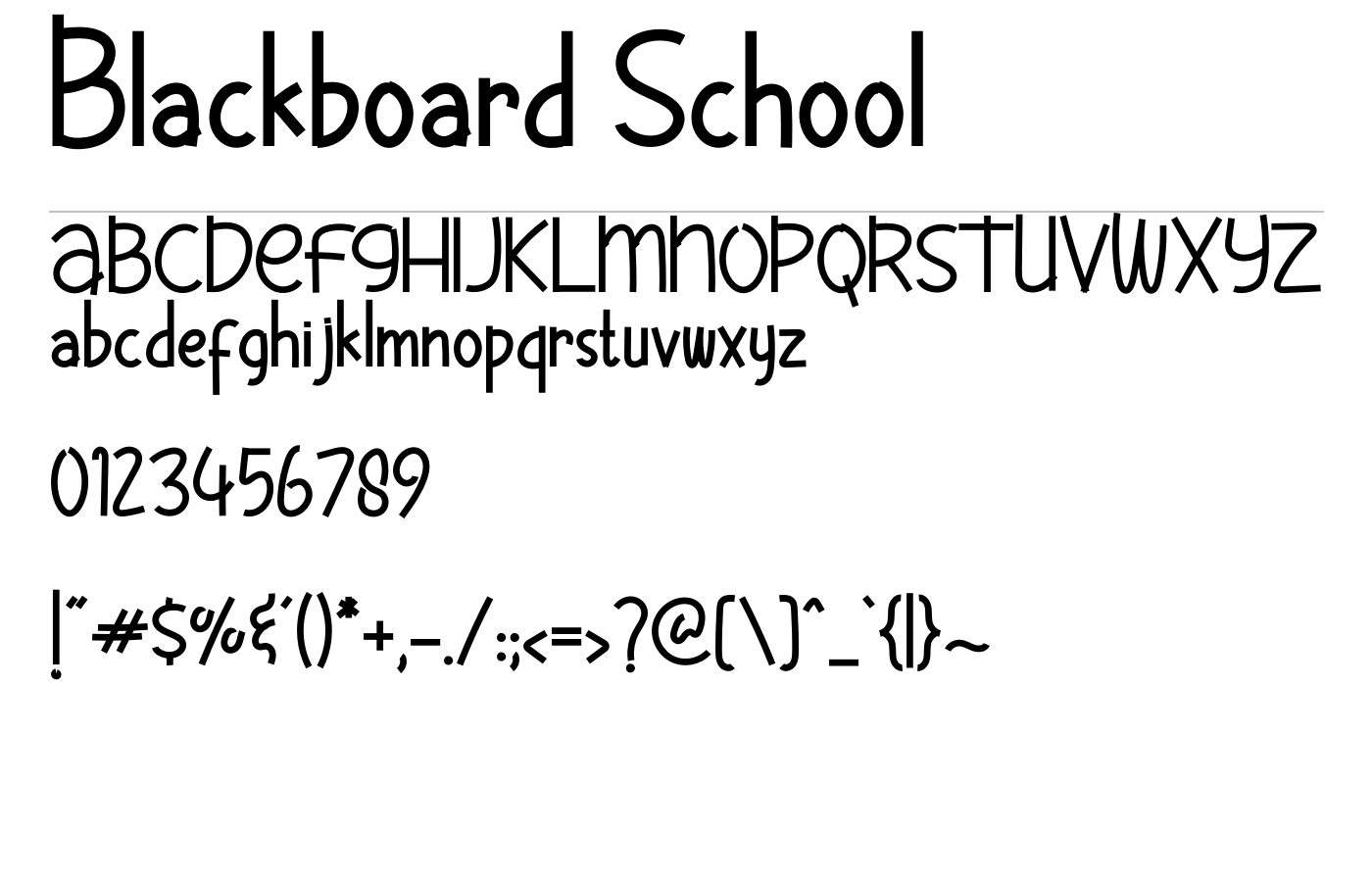
Blackboard School is a playful, hand-drawn sans serif font with a casual and friendly feel, featuring irregular, slightly quirky letterforms that mimic chalk writing on a blackboard. Its light weight and moderate x-height make it ideal for informal, educational, or creative projects that want to convey approachability and fun. This font works well in children's books, classroom materials, and any design seeking a whimsical, personalized touch.
Blackboard School Font
About Blackboard School Font
| Font family | Blackboard School Font |
| Designer | Rofiq Soelta |